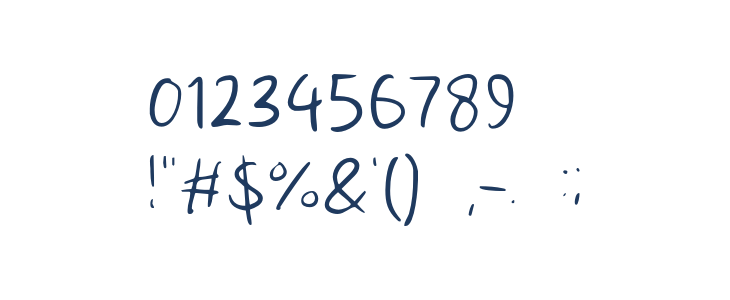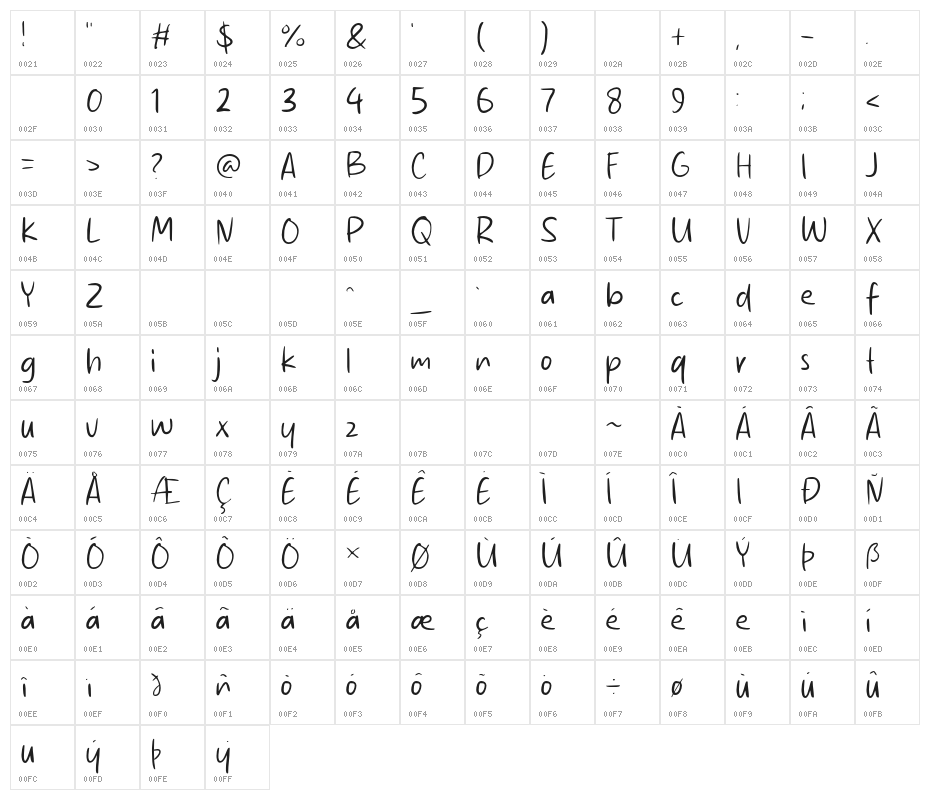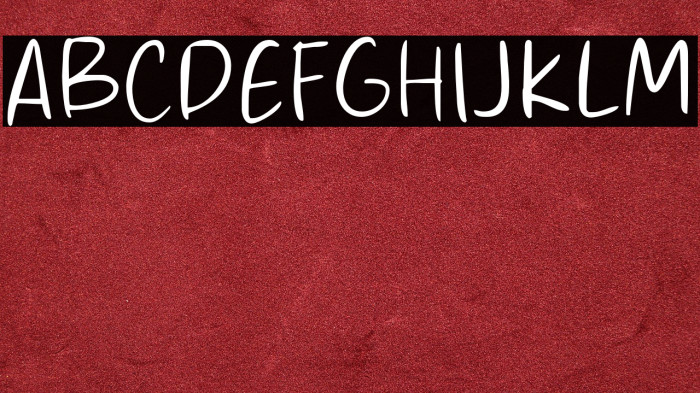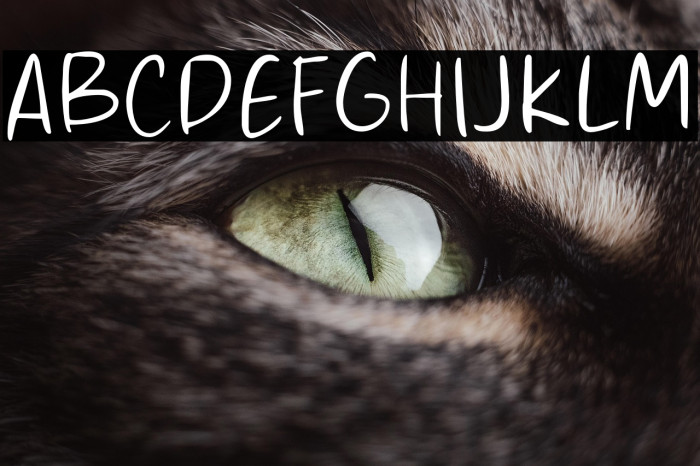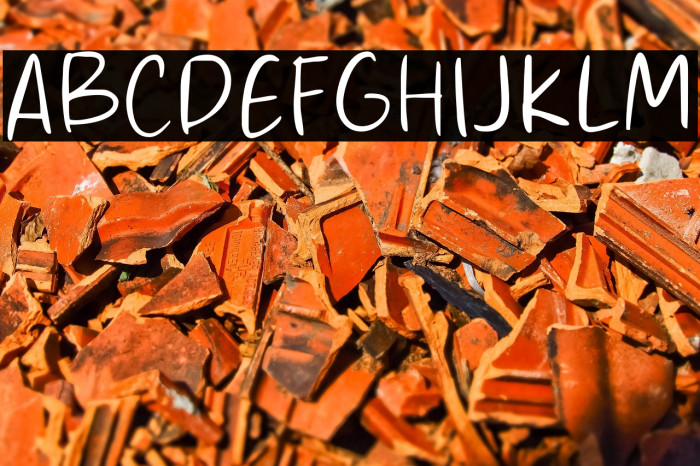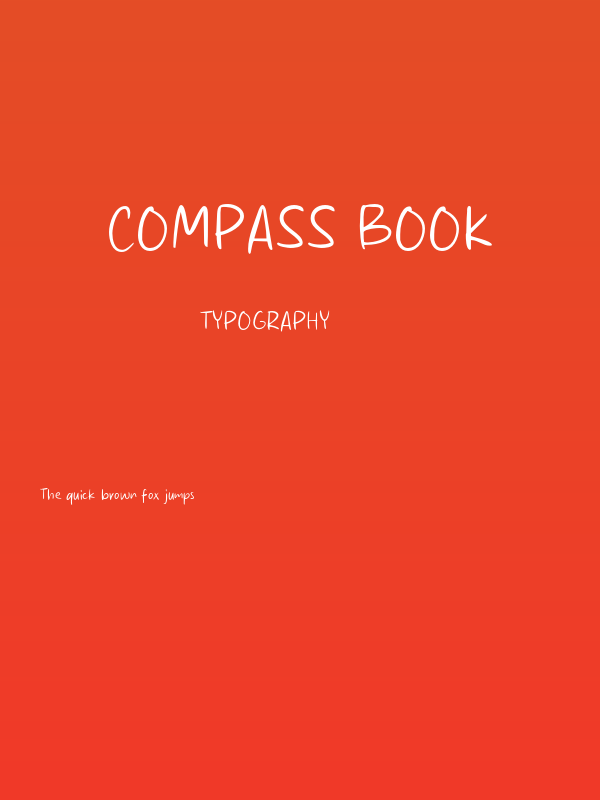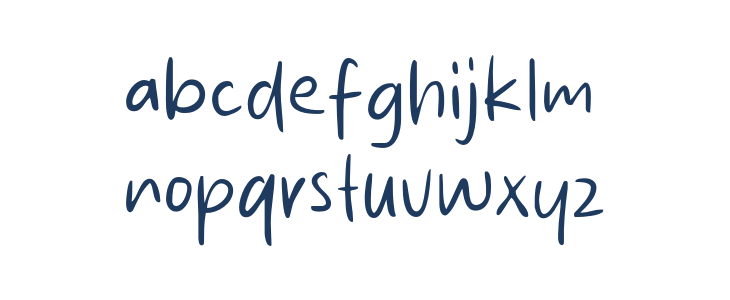
Compass Book Font
Compass Book Description
This font exudes a playful and casual handwritten style, characterized by its smooth, flowing lines and slightly irregular shapes that mimic natural handwriting. The letters are well-spaced, providing a clear and readable appearance while maintaining a relaxed and informal vibe. The strokes are consistent in thickness, offering a medium contrast that enhances its legibility. Its overall style is modern yet approachable, making it suitable for a variety of creative projects.
Use CaseLogos, Headlines, Informal communications
Proposed ProjectsIdeal for personal branding, greeting cards, invitations, and social media graphics.